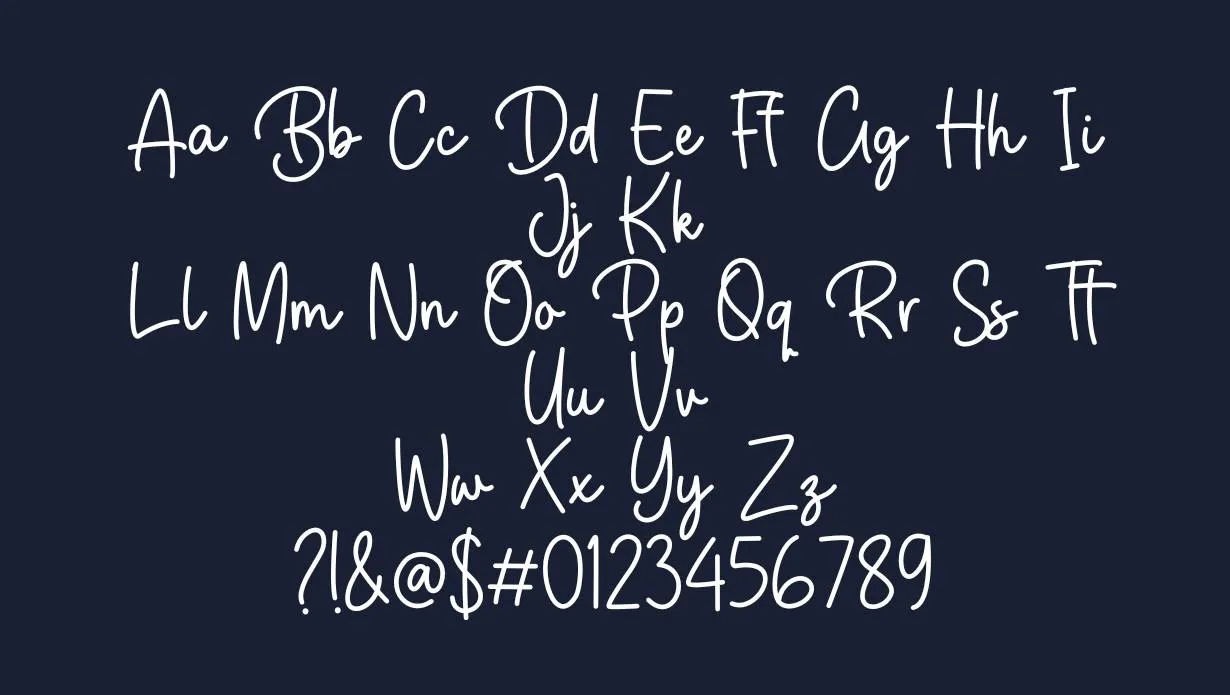
Fit for kings and queens, the Royal font is a sophisticated choice that adds a touch of regality to any text. This font is excellent for formal occasions such as wedding invitations or official announcements.
The Royal font gives your words a sense of importance and elegance, making them stand out in a crowd. It’s like dressing up your words in a fancy gown or a princely suit, perfect for events that demand a touch of class.
| Name | Royal Font |
| Designer | Andrew McCluskey |